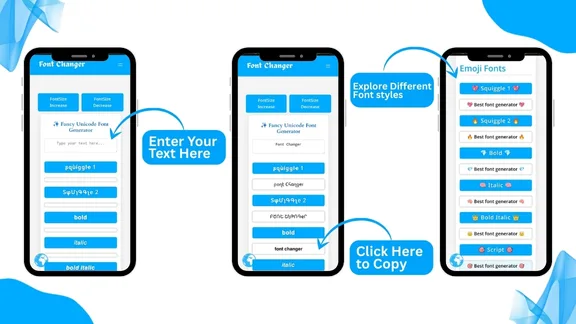
Fonts Changer Turning Everyday Text into Digital Personality
In the modern digital world, words are everywhere—but not all words are noticed. What makes some text stand out while other messages fade into the background? The answer often lies in presentation. This is where a fonts changer becomes a powerful creative tool. A fonts changer allows anyone to transform plain text into visually appealing styles, helping messages capture attention and express personality instantly.
From social media posts and website headlines to personal messages and branding, a fonts changer gives text a new voice—without changing a single word.
What Is a Fonts Changer?
A fonts changer is an online or digital tool that converts standard text into a variety of font styles. These styles may include bold, cursive, fancy, aesthetic, gothic, minimal, or artistic variations. Unlike traditional design software, a fonts changer is simple, fast, and requires no technical skills.
Most fonts changer tools work using Unicode characters, which means the converted text can be copied and pasted across different platforms while keeping its appearance intact. This makes fonts changer tools especially popular for social media, messaging apps, blogs, and websites.
Why Fonts Changer Tools Are So Popular
The internet is crowded. Every day, millions of posts compete for attention. A fonts changer helps text stand out visually, making it more likely to be noticed and remembered.
People use a fonts changer because it offers:
• Instant creativity
• No design experience required
• Easy copy-and-paste functionality
• Compatibility with many platforms
Whether someone wants to decorate a social media bio or highlight an important line in a post, a fonts changer makes it quick and effortless.
Fonts Changer and Personal Expression
Text is more than communication—it is expression. The way text looks can reflect mood, personality, and intent. A fonts changer gives users control over how their words feel to others.
Elegant fonts may express calmness or creativity. Bold fonts can show confidence and authority. Playful fonts add fun and friendliness. With a fonts changer, users can match their text style to their message and identity.
This ability to customize text appearance has made fonts changer tools especially popular among younger users, influencers, and content creators.
How Fonts Changer Enhances Creativity
Creativity does not always require complex tools. Sometimes, small visual changes can make a big difference. A fonts changer encourages experimentation by letting users preview different styles instantly.
Writers can emphasize quotes, creators can design eye-catching captions, and marketers can draw attention to calls to action. A font changer bridges the gap between writing and design, allowing creativity to flow freely.
Because fonts changer tools are easy to use, users feel encouraged to explore without fear of making mistakes.
Practical Uses of Fonts Changer Tools
A fonts changer is useful in many real-world situations. Students use it to style project titles or presentation headings. Bloggers use it to create visually distinct sections. Small businesses rely on fonts changer tools to design promotional text for social media.
Even casual users enjoy using a fonts changer to send stylized messages, create unique usernames, or add flair to online comments. Its versatility makes it a daily-use tool rather than a niche feature.
Fonts Changer and Branding
Typography plays a major role in branding. It influences how people perceive a business or personal brand. A fonts changer allows individuals and small businesses to experiment with typography before committing to a permanent design.
For startups and creators, a fonts changer is a low-risk way to test different visual styles. By trying multiple font variations, brands can discover which typography best reflects their voice—whether modern, professional, playful, or artistic.
Accessibility and Ease of Use
One of the biggest advantages of a fonts changer is accessibility. Most tools are web-based, free, and available on all devices. There is no need to install software or create an account.
Users simply enter text, choose a style, and copy the result. This simplicity makes fonts changer tools suitable for people of all ages and skill levels.
Because they are online, fonts changer tools are always available whenever creativity strikes.
Responsible Use of Fonts Changer
While a fonts changer is a powerful visual tool, it should be used thoughtfully. Overusing decorative fonts can affect readability, especially in long content or professional communication.
The best approach is balance. Fonts changer styles work best when used for emphasis—titles, highlights, or short phrases—rather than entire paragraphs. When used correctly, a fonts changer enhances clarity instead of distracting from the message.
The Future of Fonts Changer Tools
As digital communication continues to evolve, fonts changer tools are likely to become more advanced. Future versions may include smart font suggestions, better accessibility options, and improved compatibility with platforms and devices.
Despite these changes, the core purpose of a fonts changer will remain the same: to make text more expressive, engaging, and visually appealing.
Why Fonts Changer Matters Today
In a world where attention spans are short, presentation is essential. A fonts changer empowers users to stand out without needing advanced design skills. It gives everyone the ability to add creativity and personality to text.
Whether for fun, branding, education, or communication, a fonts changer transforms ordinary words into something memorable.
Final Thoughts
The fonts changer is a simple yet impactful tool that proves creativity does not need complexity. By changing how text looks, it changes how messages are felt and remembered.
In today’s visual digital landscape, a fonts changer helps words speak louder—not by changing their meaning, but by enhancing their presence.